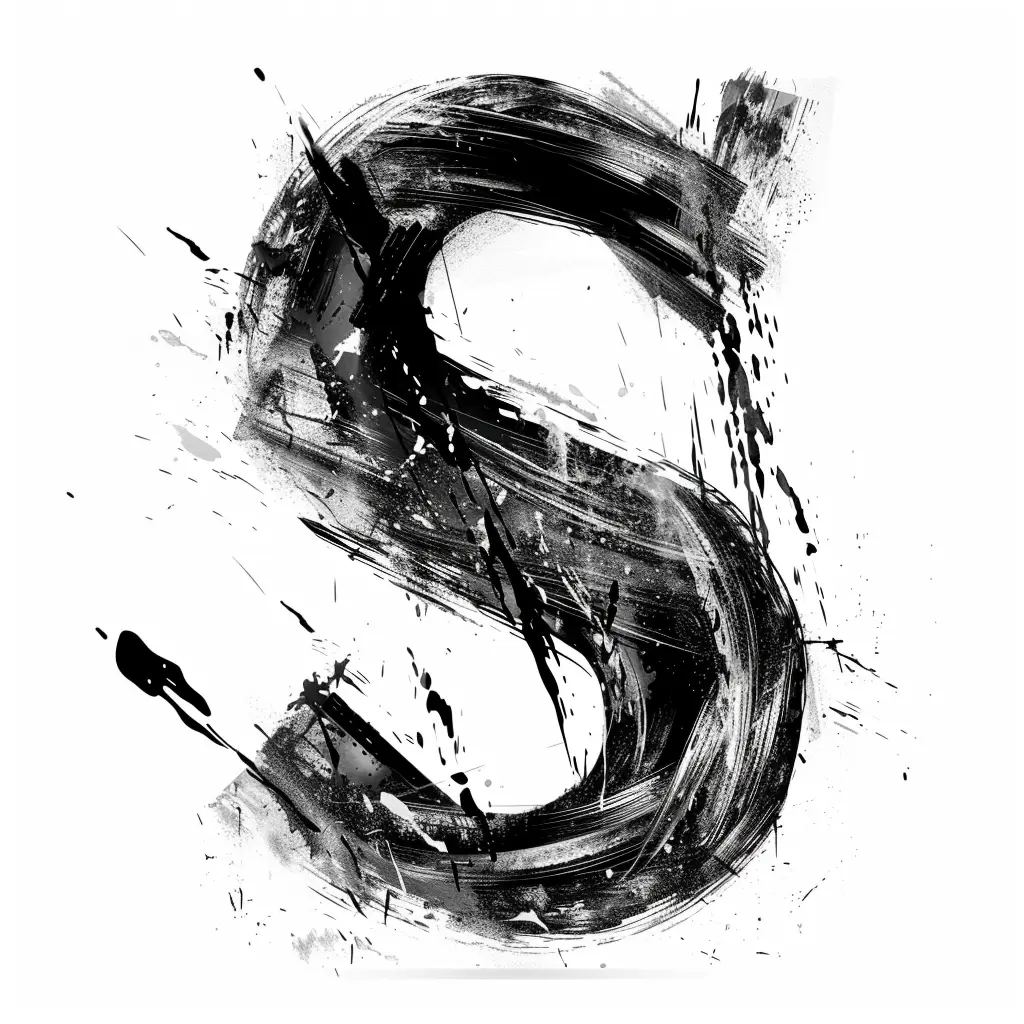
This image features a stylized, abstract representation of the letter "S" rendered in a dynamic, brushstroke-inspired style. The design uses bold black and white tones, with textured, sweeping strokes and splattered ink effects that create a sense of movement and artistic energy. The composition emphasizes contrast and texture, blending fluid curves with chaotic, expressive details.